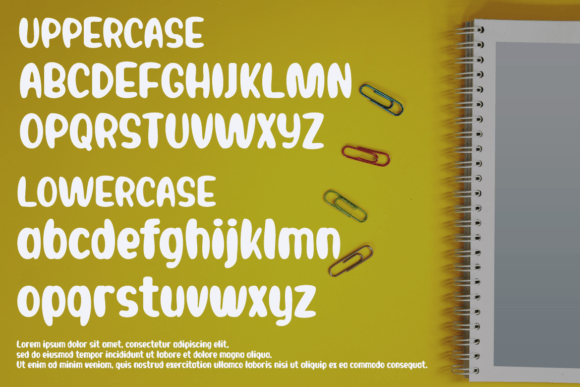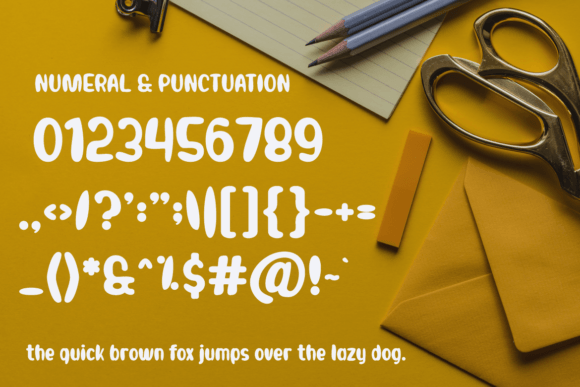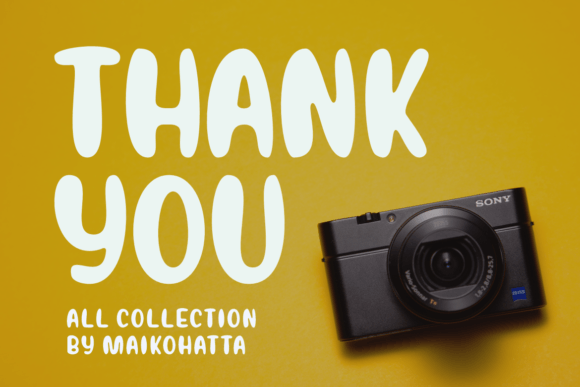
Introducing Binbu: The Playful Display Font for Creative Projects
Are you tired of using the same old fonts for your creative projects? Look no further! We’re excited to introduce Binbu, a playful display font that’s perfect for adding a touch of personality to your designs. In this article, we’ll take a closer look at the Binbu font, its features, and how you can use it to elevate your projects.
What is Binbu Font?
Binbu is a modern, playful display font designed to make your projects stand out. Its unique and quirky style makes it suitable for a wide range of contexts, from greeting cards and invitations to posters, baby clothing, book covers, quotes, logos, presentations, and headlines.
Whether you’re a designer, crafter, or DIY enthusiast, Binbu is the perfect font to add a touch of whimsy and fun to your creations. Its playful style is sure to capture the attention of your audience and leave a lasting impression.
Key Features of Binbu Font
So, what makes Binbu font so special? Here are some of its key features:
• Playful Style: Binbu has a unique, playful style that’s perfect for creative projects.
• Versatile: Suitable for a wide range of contexts, including greeting cards, invitations, posters, baby clothing, book covers, quotes, logos, presentations, and headlines.
• Uppercase and Lowercase: Includes both uppercase and lowercase letters, giving you flexibility with your designs.
How to Use Binbu Font
Binbu font is easy to use and can be applied to various design projects. Here are some ideas to get you started:
• Greeting Cards: Add a personal touch to your greeting cards with Binbu’s playful style.
• Invitations: Make your invitations stand out with Binbu’s unique font.
• Posters: Create eye-catching posters with Binbu’s bold and playful style.
• Baby Clothing: Add a cute and playful touch to baby clothing with Binbu font.
• Book Covers: Make your book covers stand out with Binbu’s unique and attention-grabbing style.
• Quotes: Add a touch of personality to your quotes with Binbu font.
• Logos: Use Binbu font to create a unique and memorable logo for your brand.
• Presentations: Add a playful touch to your presentations with Binbu font.
• Headlines: Use Binbu font to create attention-grabbing headlines for your articles, blog posts, or social media posts.
Why Choose Binbu Font?
With so many fonts available, why choose Binbu? Here are some reasons why Binbu font stands out:
• Unique Style: Binbu has a unique and playful style that’s sure to make your projects stand out.
• Versatility: Suitable for a wide range of contexts, making it a great addition to your font library.
• Easy to Use: Binbu font is easy to use and can be applied to various design projects.
In conclusion, Binbu font is a playful display font that’s perfect for adding a touch of personality to your creative projects. Its unique style, versatility, and ease of use make it a great addition to your font library. Whether you’re a designer, crafter, or DIY enthusiast, Binbu font is sure to inspire your creativity and help you create stunning designs.